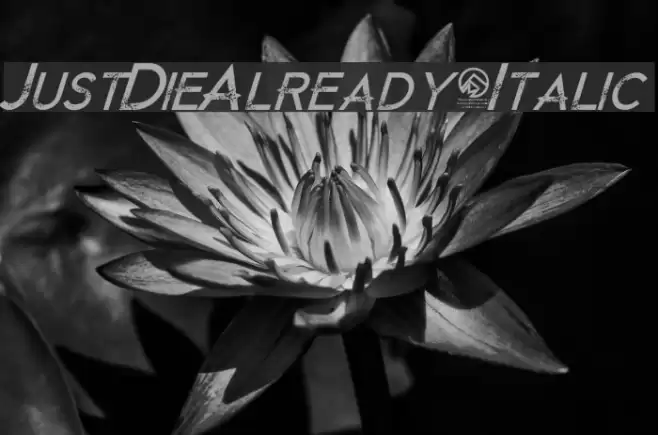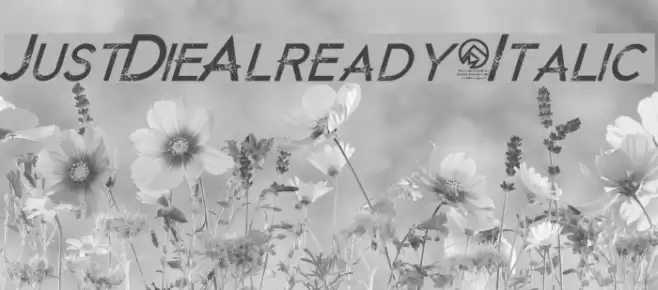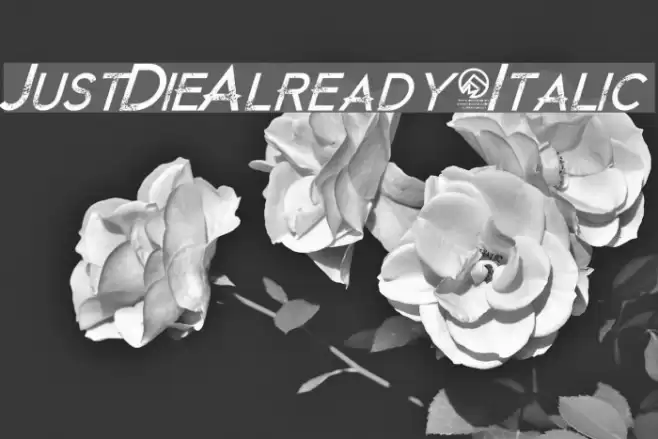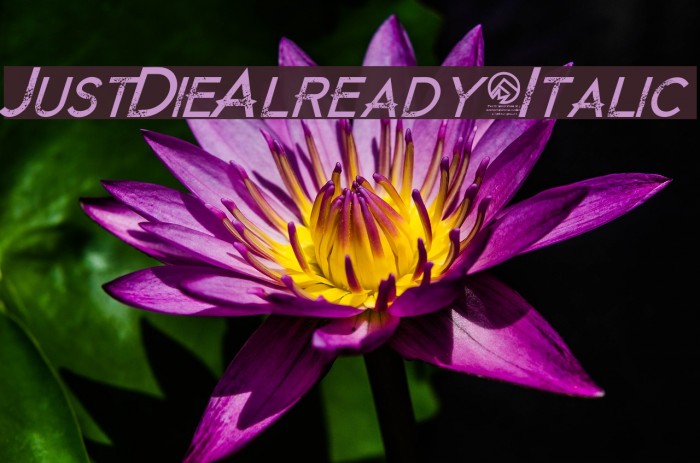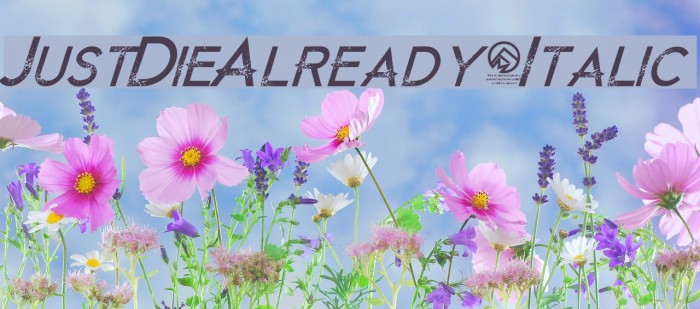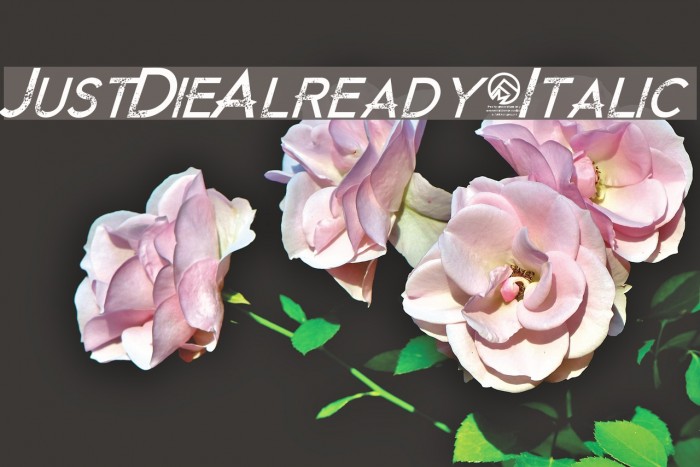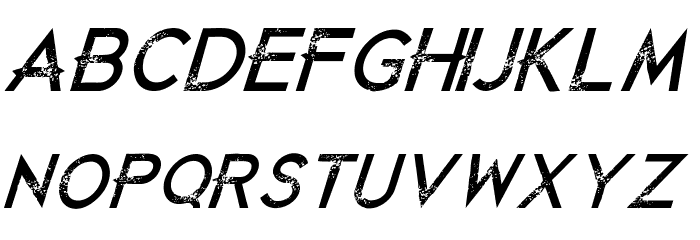
JustDieAlready-Italic Font
JustDieAlready-Italic Description
This font features a bold and italicized style with a distressed, grunge texture that gives it a rugged and edgy appearance. The uppercase and lowercase letters are slanted, adding a dynamic and energetic feel. The characters are well-defined with a consistent thickness, and the distressed effect adds a unique, worn-out look. This font is suitable for projects that require a bold statement or an urban, gritty aesthetic. The special characters maintain the same distressed style, ensuring consistency across all text elements.
A bold, italicized font with a distressed, grunge texture from Uncategorized fonts.
- Proposed Projects: Ideal for posters, album covers, video game graphics, and streetwear branding.
- Overall Style: Grunge, Urban